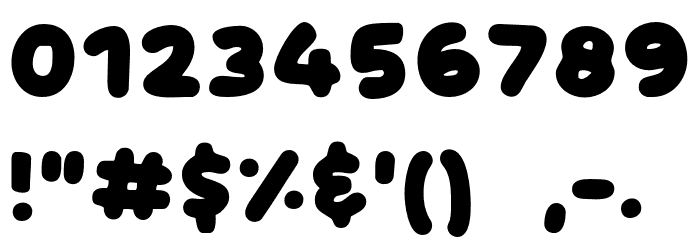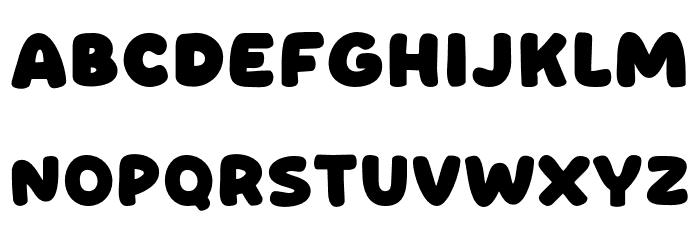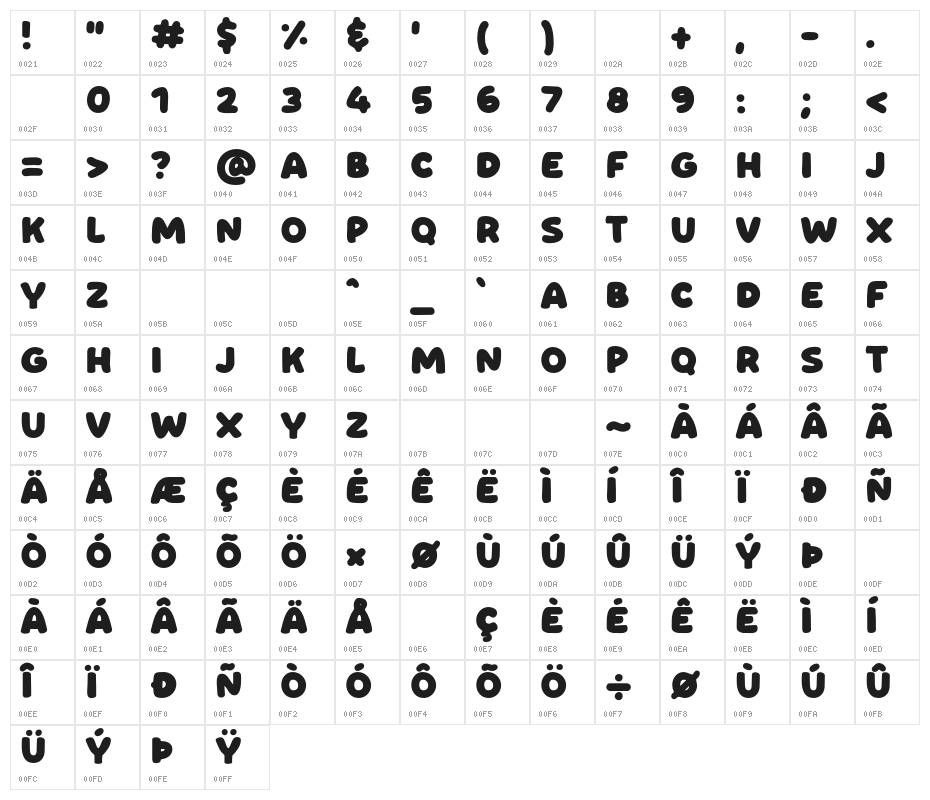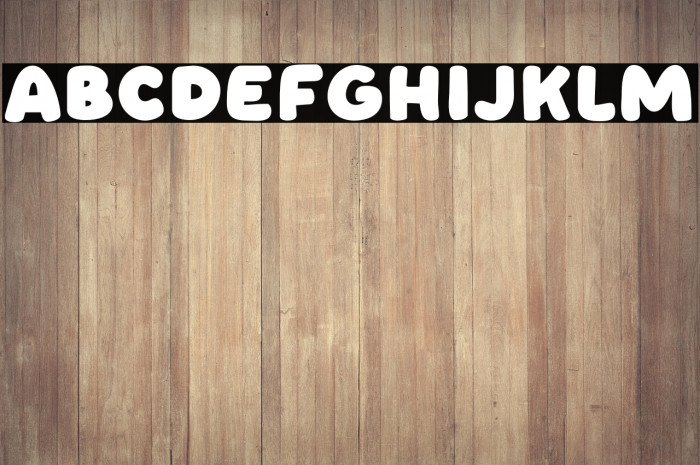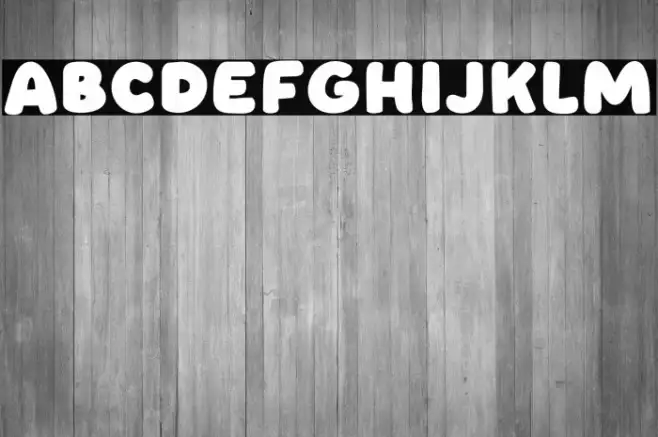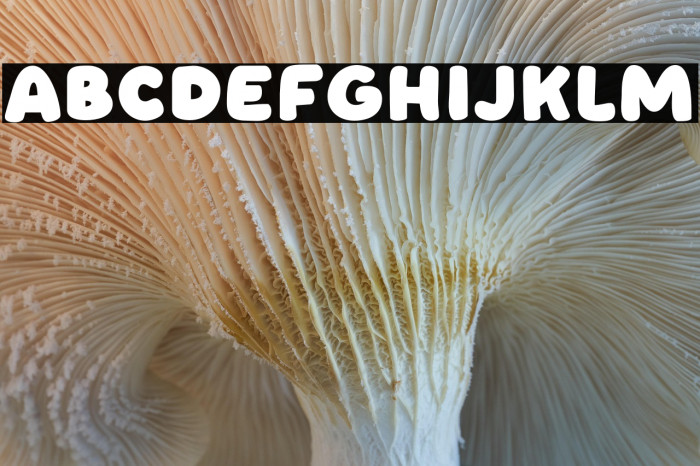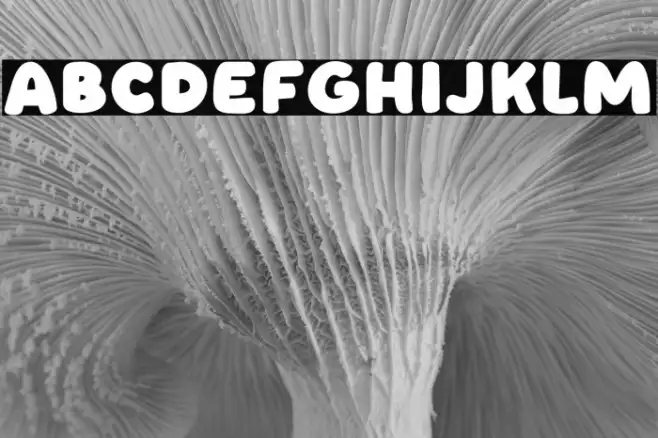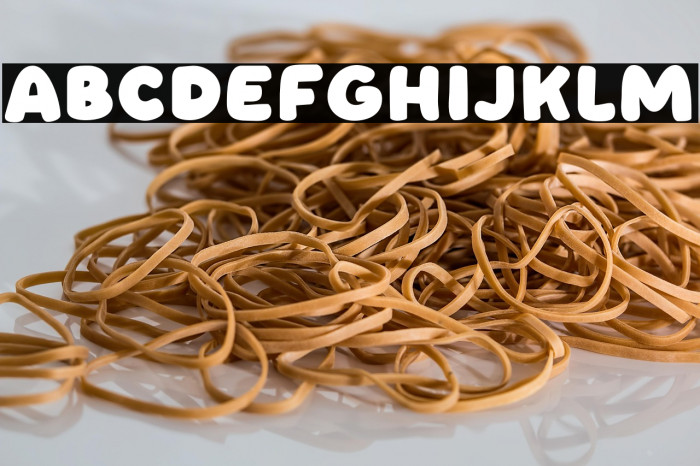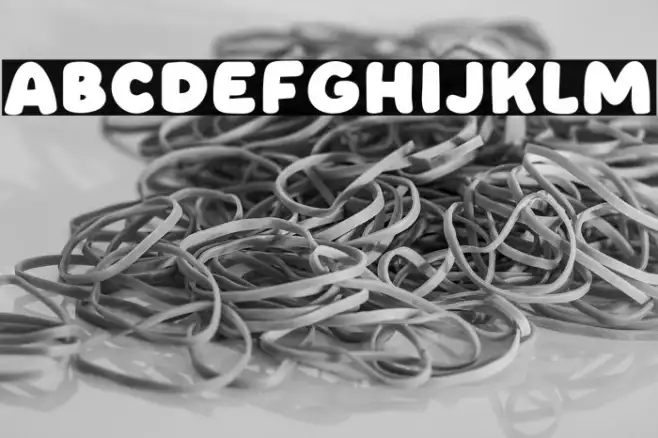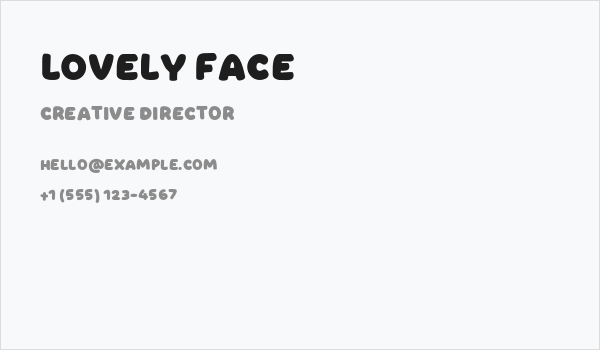
Lovely Face Font
Lovely Face Description
This playful and bold font features rounded, bubbly characters that exude a sense of fun and approachability. The letters are thick and evenly weighted, giving them a strong presence on the page. The rounded edges and lack of sharp angles contribute to a friendly and informal appearance. The font maintains consistent character spacing, ensuring readability while adding a touch of whimsy. Its unique style makes it ideal for projects that aim to convey a sense of joy and creativity.
| Overall Style | Playful, Fun |
| Proposed Projects | Ideal for children's books, playful branding, party invitations, and creative posters. |